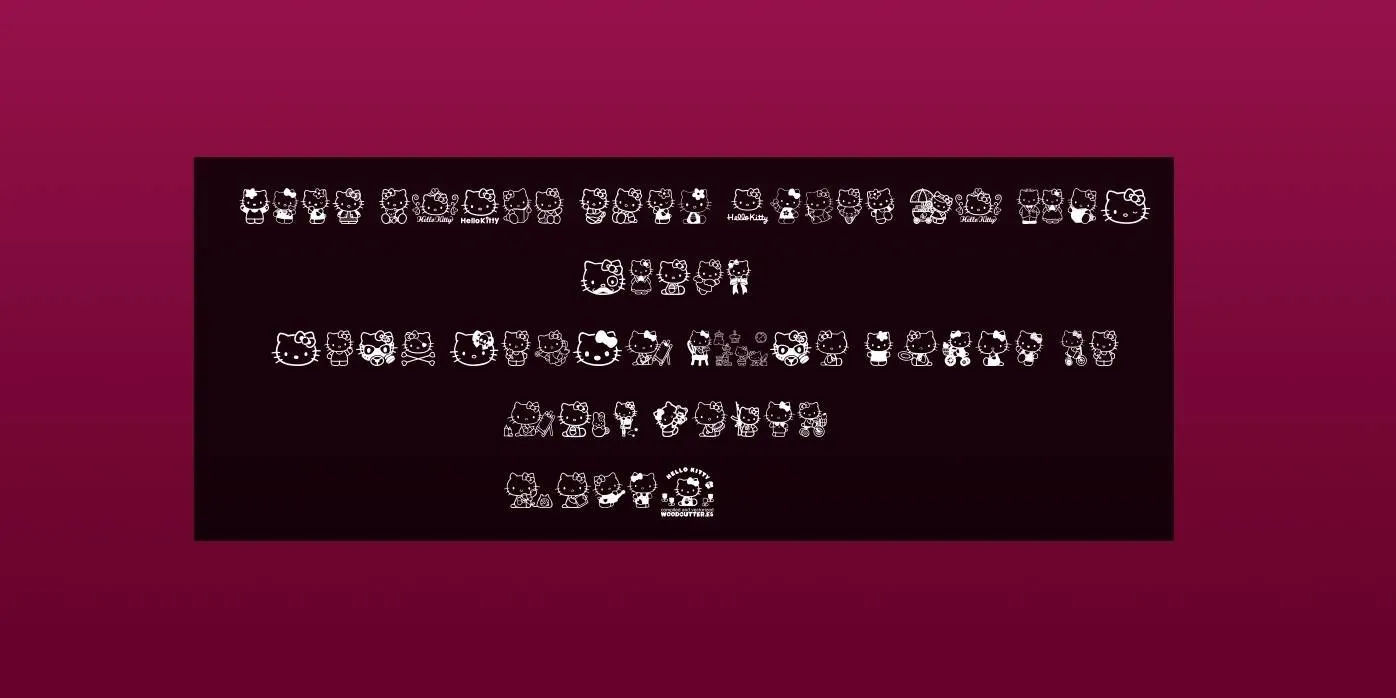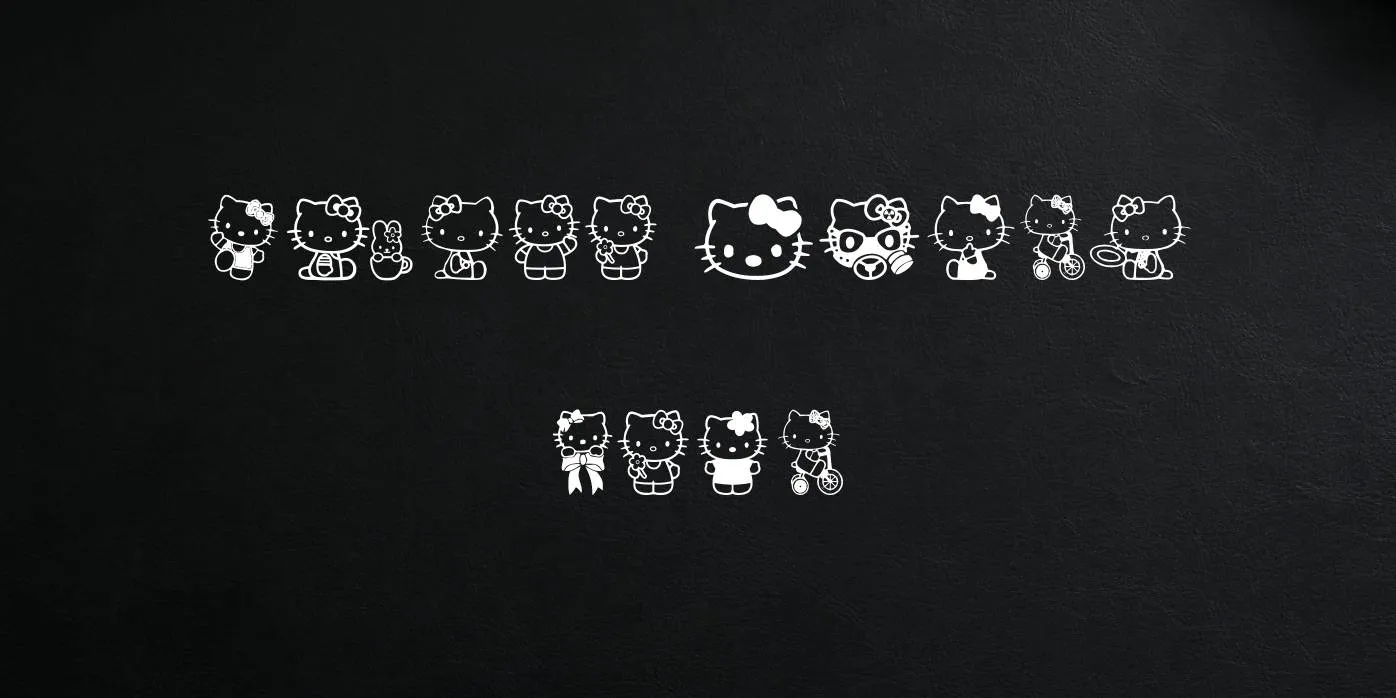
Hello Kitty Font
Today, we are consulting on a very famous typeface named Hello Kitty Font. This amazing typeface belongs to the Fancy font family. It was developed by Woodcutter. It was designed on the base of Japanese Cartoon characters.
This typeface has keen and Bold features. You can use this beautiful font for both commercials as well as personal purposes. It is a very popular font and is used by many people all over the globe. Its copy and paste function is perfect for many designs.
For more advanced uses, you will have to use its similar wicked font which has the same features. Hello Kitty Typeface has been ruling the hearts of youngsters since its launch in 1998. The reason behind its popularity is its unique and attractive pattern. You can also use its generator tool for creating many designs accurately.